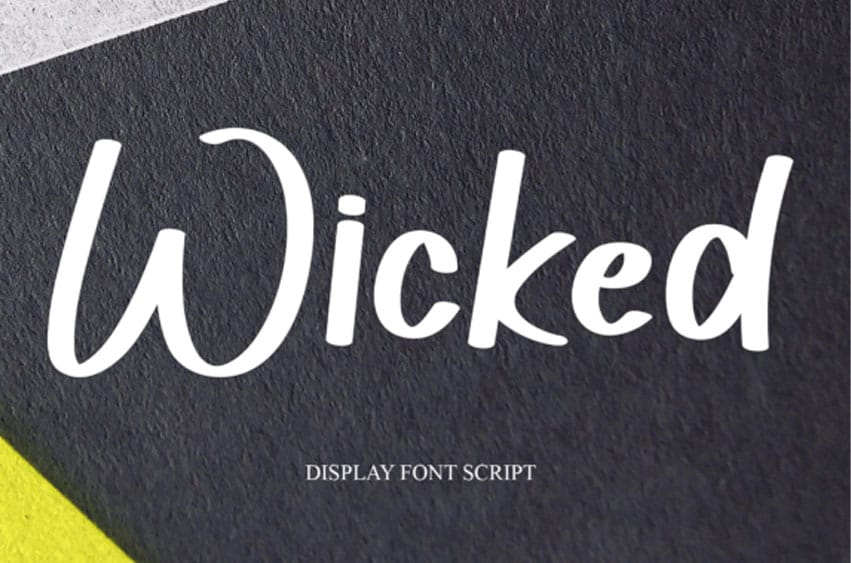
Wicked Font is a cool and modern handwritten font.
Whether you’re using it for crafts, digital design, presentations, or creating greeting cards, this font has the potential to be your go-to font, whatever the occasion.